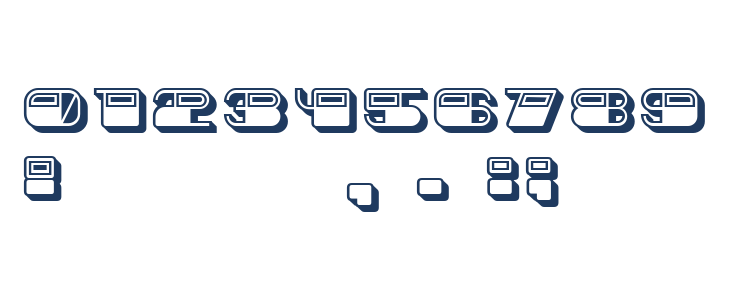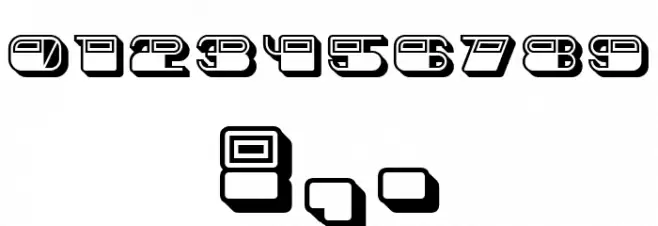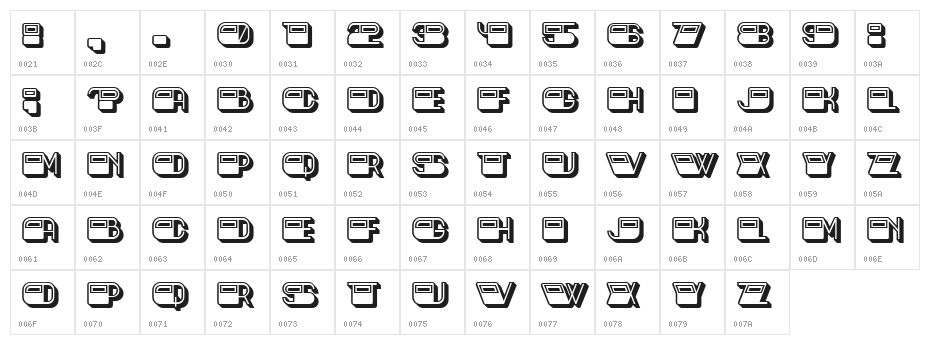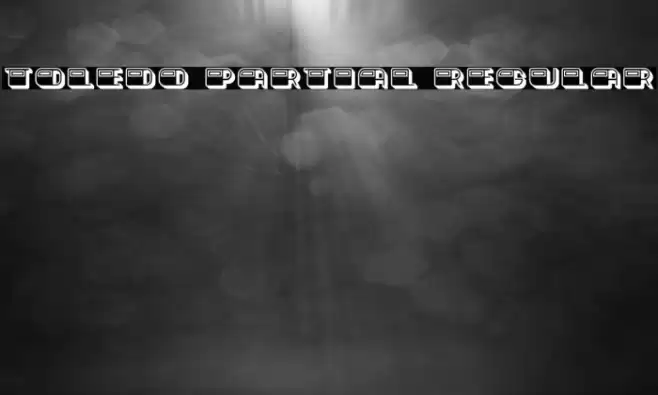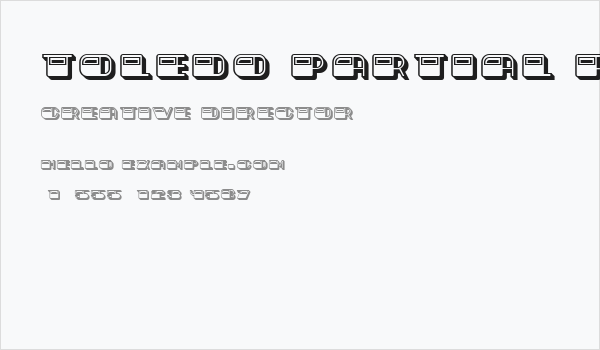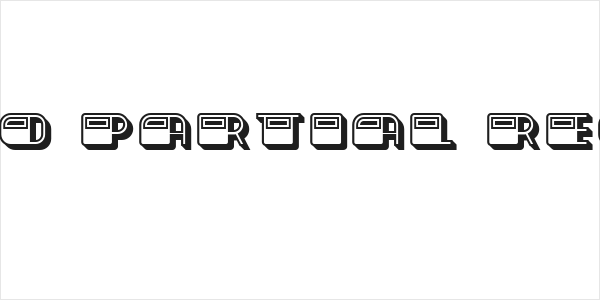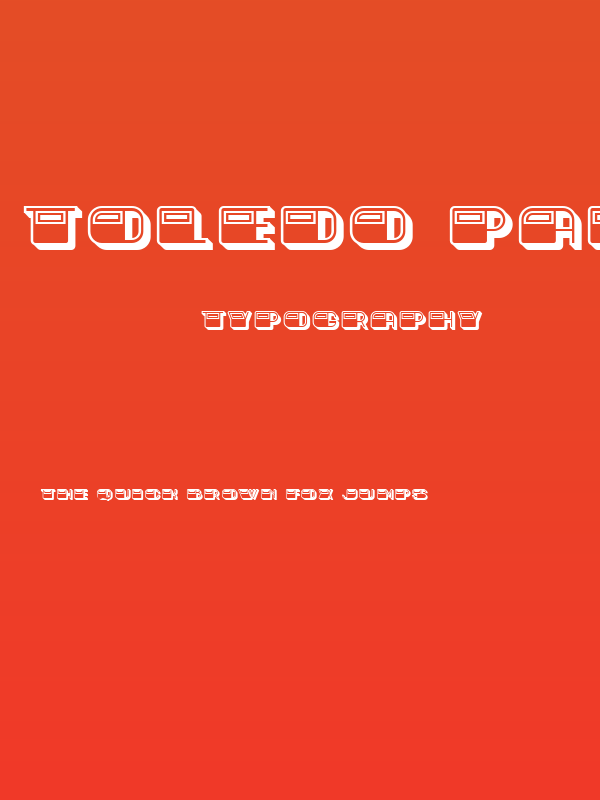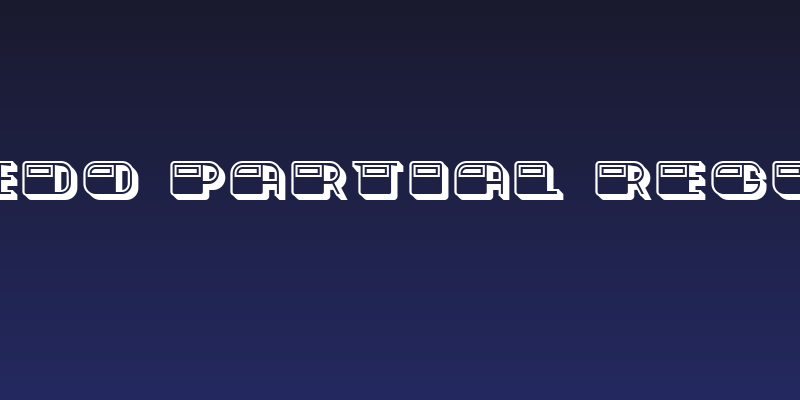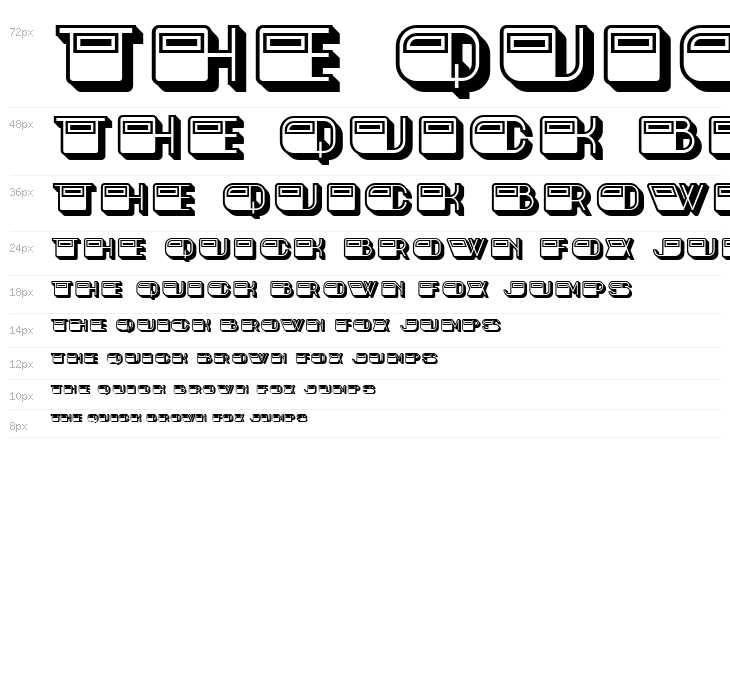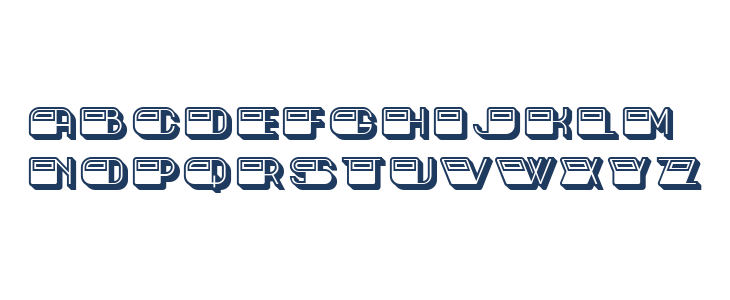
Toledo Partial Regular Font
Toledo Partial Regular Description
This font features a bold, geometric design with a distinct three-dimensional effect. Each character is crafted with a thick outline and a shadow-like element that gives it depth and a futuristic appearance. The letters are uppercase and lowercase, maintaining a consistent style throughout. The numbers and special characters follow the same design principles, ensuring uniformity. The font's unique style makes it stand out, with its blocky, angular shapes and high contrast between the filled and outlined areas. This design is both eye-catching and modern, suitable for various creative applications.